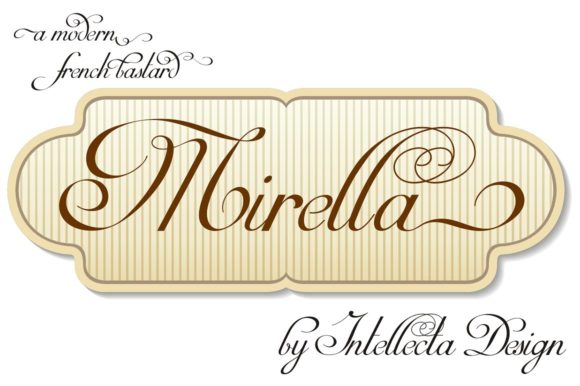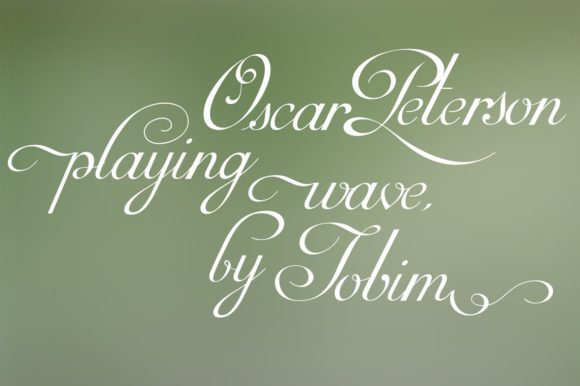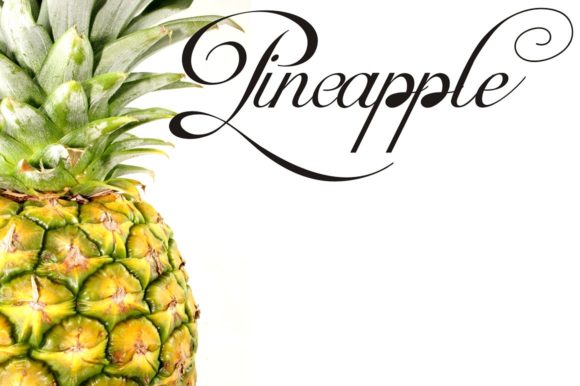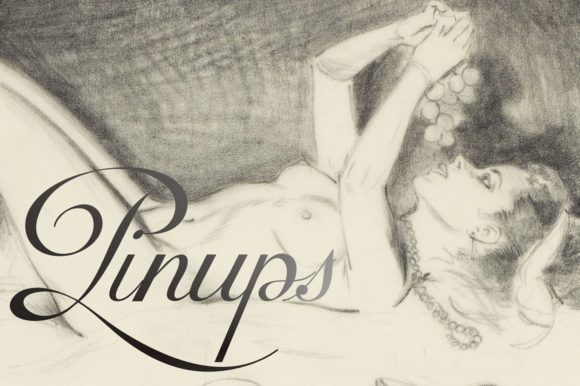
Mirella Script Font
About Mirella Script Font
The Mirella is a modern and elegant script font. It has a clean approach of the classic French Bastarde script style.